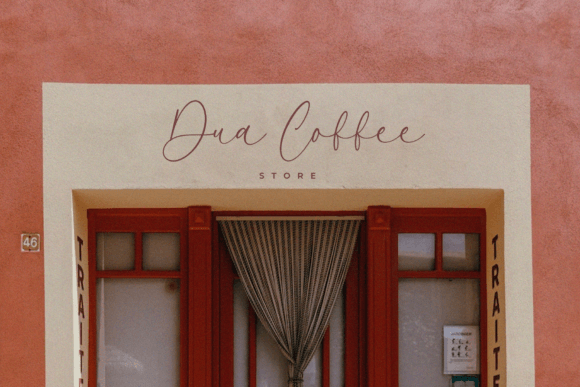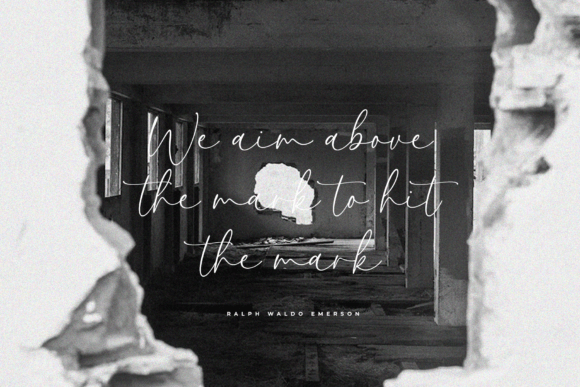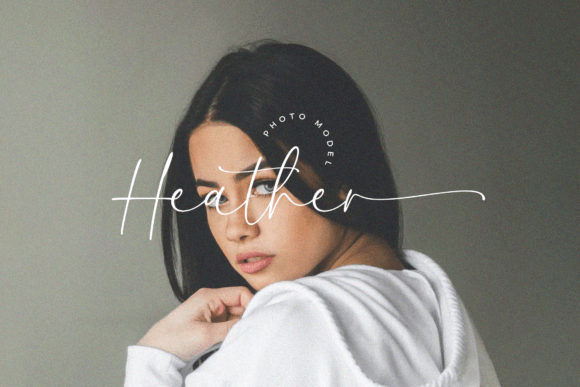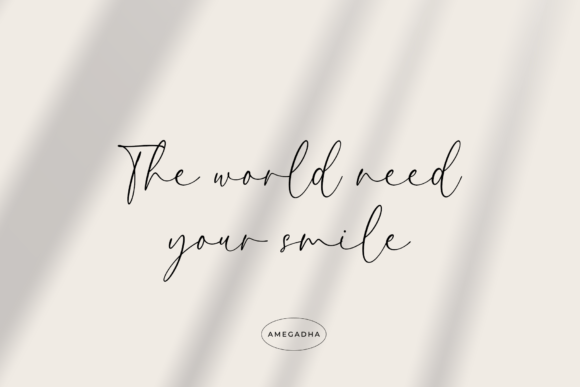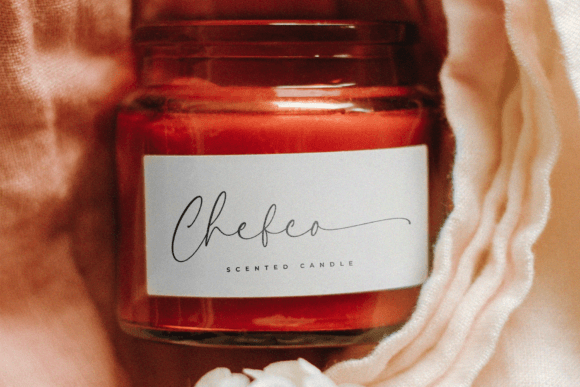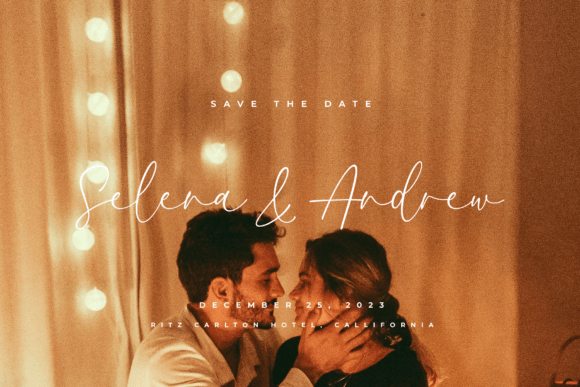
Introducing Coolection Calligraphy Font: Timeless Beauty Meets Modern Elegance
In the world of typography, few fonts manage to capture the essence of both classic elegance and contemporary style. Coolection Calligraphy Font is one such exceptional typeface that seamlessly blends the timeless beauty of traditional calligraphy with the modern elegance required for today’s design projects. Whether you’re a seasoned designer or a crafting enthusiast, Coolection is poised to elevate your creations to new heights of sophistication.
The Essence of Coolection Calligraphy Font
Coolection Calligraphy Font is characterized by its graceful strokes and delicate curves, which exude an air of authenticity and refinement. Each letterform is meticulously crafted to convey a sense of fluidity and movement, reminiscent of handwritten calligraphy. Yet, it retains a level of precision and clarity that makes it suitable for a wide range of applications, from elegant invitations to professional branding.
Enhance Your Designs with Captivating Swashes and Ligatures
One of the standout features of Coolection Calligraphy Font is its captivating swashes and ligatures. These decorative elements add a touch of uniqueness and personality to any design, allowing you to create truly bespoke pieces that stand out from the crowd. The swashes can be used to add flair to headings, while the ligatures offer a subtle yet sophisticated way to connect letters, enhancing the overall flow and harmony of your text.
Elegance Redefined: Perfect for Invitations, Branding, and More
Coolection Calligraphy Font is incredibly versatile, making it the perfect choice for a variety of design projects. For those special occasions, it can add a touch of luxury and elegance to your invitations, wedding cards, and event announcements. In the realm of branding, Coolection can help convey a sense of sophistication and refinement, ideal for businesses looking to establish a high-end image.
Elevate Your Projects Effortlessly
What sets Coolection apart is its ease of use. Even for those with limited design experience, incorporating this font into your projects is straightforward. The intuitive nature of Coolection Calligraphy Font means you can achieve professional-looking results without a steep learning curve. This accessibility makes it an excellent choice for crafters and DIY enthusiasts looking to add a professional touch to their creations.
Experience the Versatility of Coolection
The versatility of Coolection Calligraphy Font is one of its most compelling attributes. Here are just a few examples of how you can use it to elevate your designs:
- Wedding Invitations and Stationery: Add a touch of romance and elegance to your wedding invitations, save-the-date cards, and other stationery.
- Branding and Packaging: Use Coolection to create a luxurious brand identity that stands out in your industry.
- Digital Marketing Materials: Enhance your website, social media graphics, and email newsletters with a sophisticated typography that captures your audience’s attention.
- Art and Craft Projects: From handmade cards to DIY decor, Coolection can add a professional and artistic touch to your craft projects.
Coolection Calligraphy Font represents a perfect marriage of traditional calligraphy and modern design sensibilities. Its graceful strokes, delicate curves, and captivating swashes and ligatures make it an invaluable asset for designers and crafters alike. Whether you’re looking to add a touch of elegance to your invitations, create a sophisticated brand identity, or simply elevate your craft projects, Coolection is the ideal choice. Experience the elegance redefined with Coolection Calligraphy Font and discover a new world of typographic possibilities.
Embrace the beauty of Coolection and let your designs speak with the elegance and sophistication they deserve.